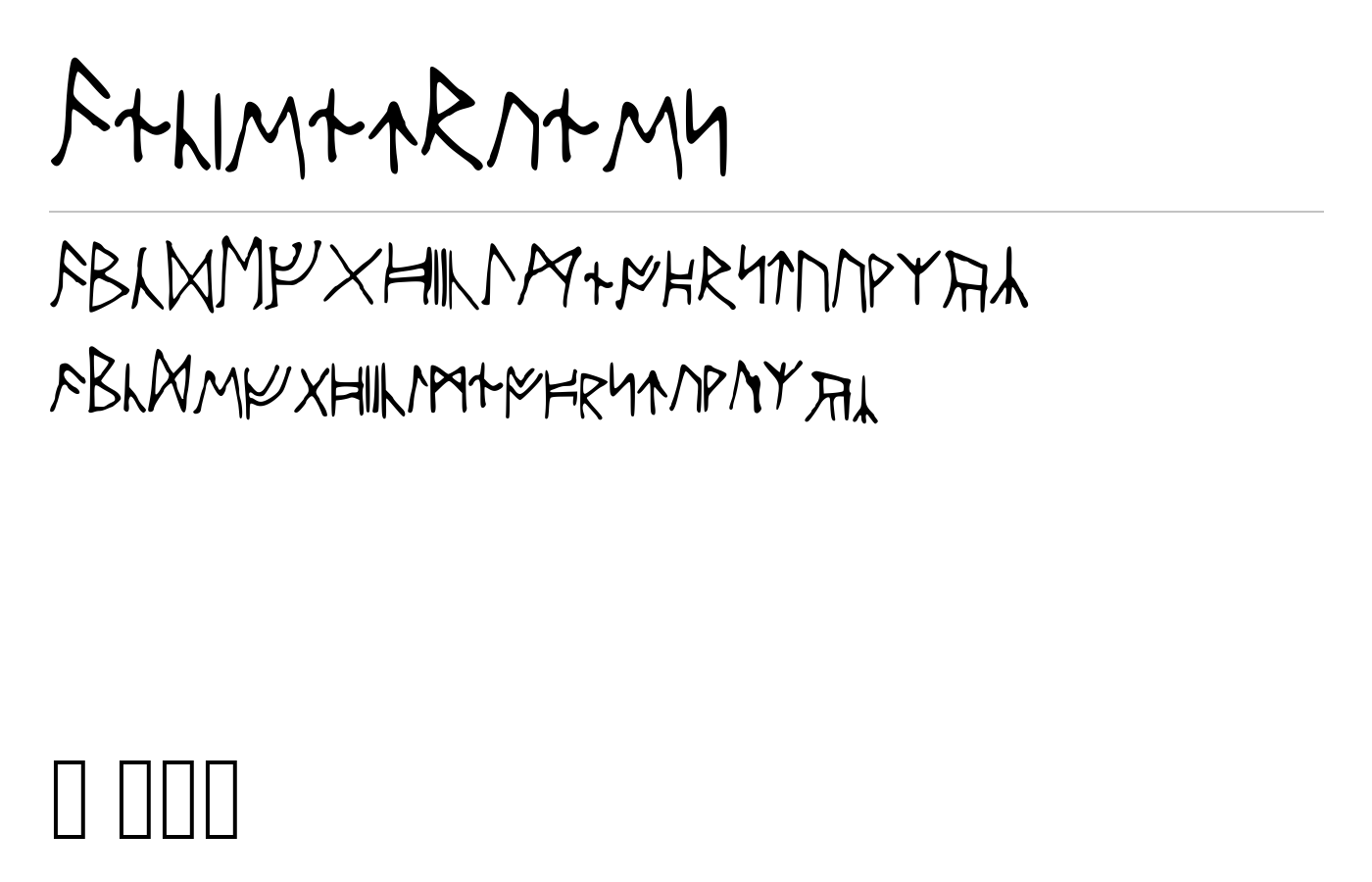
AncientRunes is a distinctive handwritten typeface inspired by ancient runic alphabets, featuring irregular, sharp, and angular strokes that evoke a mysterious and historic feel. Its uneven weight and quirky shapes make it ideal for projects seeking a primitive, mystical, or fantasy vibe, perfect for game titles, themed posters, or creative branding that wants to convey a touch of archaic adventure. This font works best in decorative use where its unique character can stand out without losing legibility.
AncientRunes Font
About AncientRunes Font